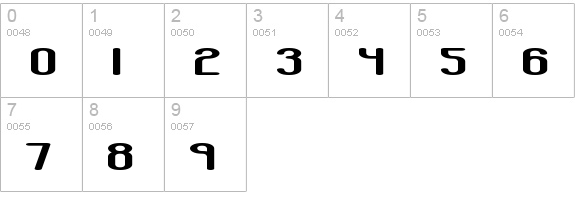
Bobcaygeon BRK font is a stylish and versatile typeface that exudes modernity and creativity. With its unique design elements and sleek appearance, this font is perfect for a wide range of design projects, from branding to packaging to advertising. The bold and eye-catching nature of Bobcaygeon BRK font makes it stand out from the crowd and capture the attention of viewers. What makes Bobcaygeon BRK font even more appealing is that it is available for free download at FontsMarket.com. This means that you can easily access and use this stunning font in your projects without any cost, making it a valuable addition to your font collection. Don't miss the opportunity to enhance your designs with the elegance and sophistication of Bobcaygeon BRK font – download it for free today at FontsMarket.com!